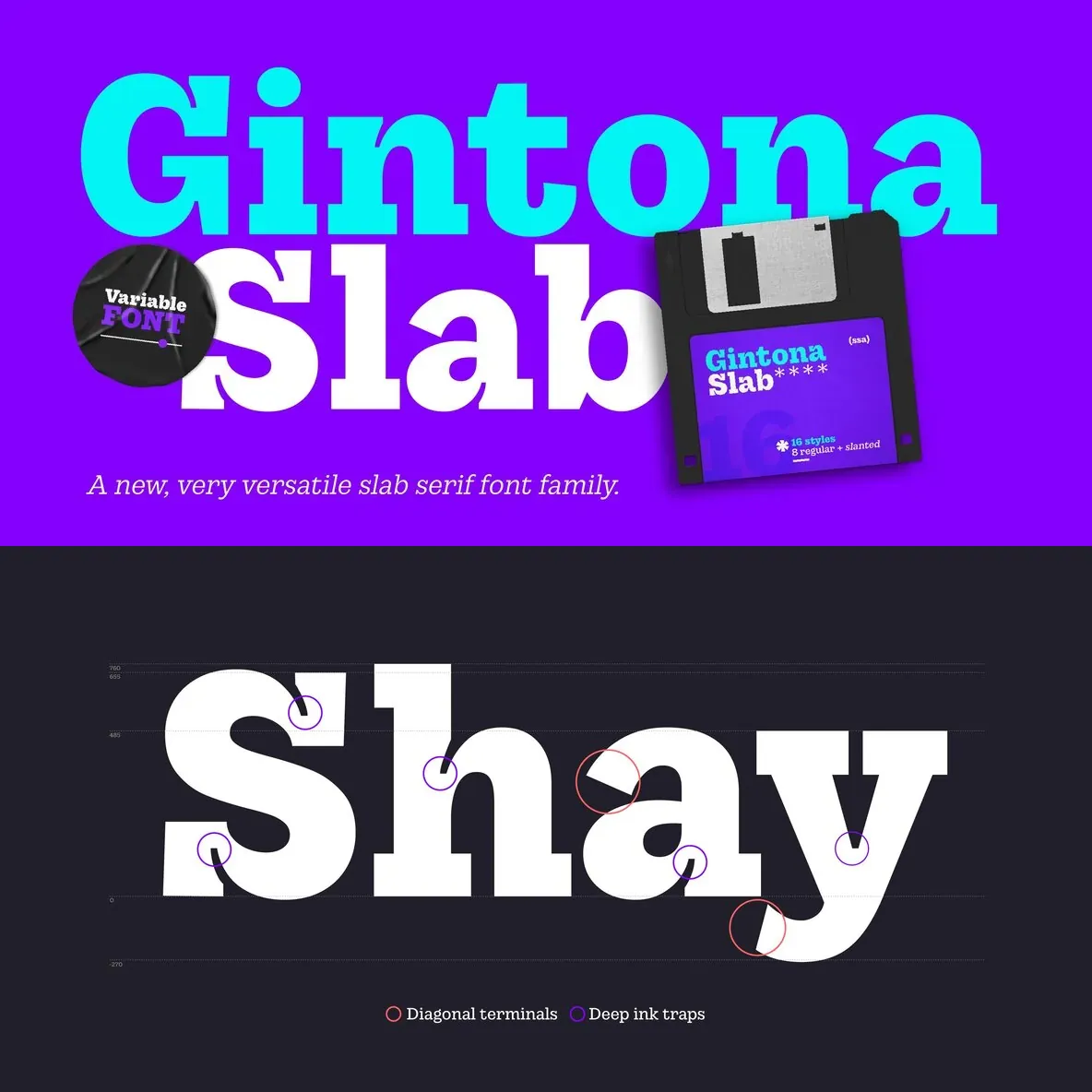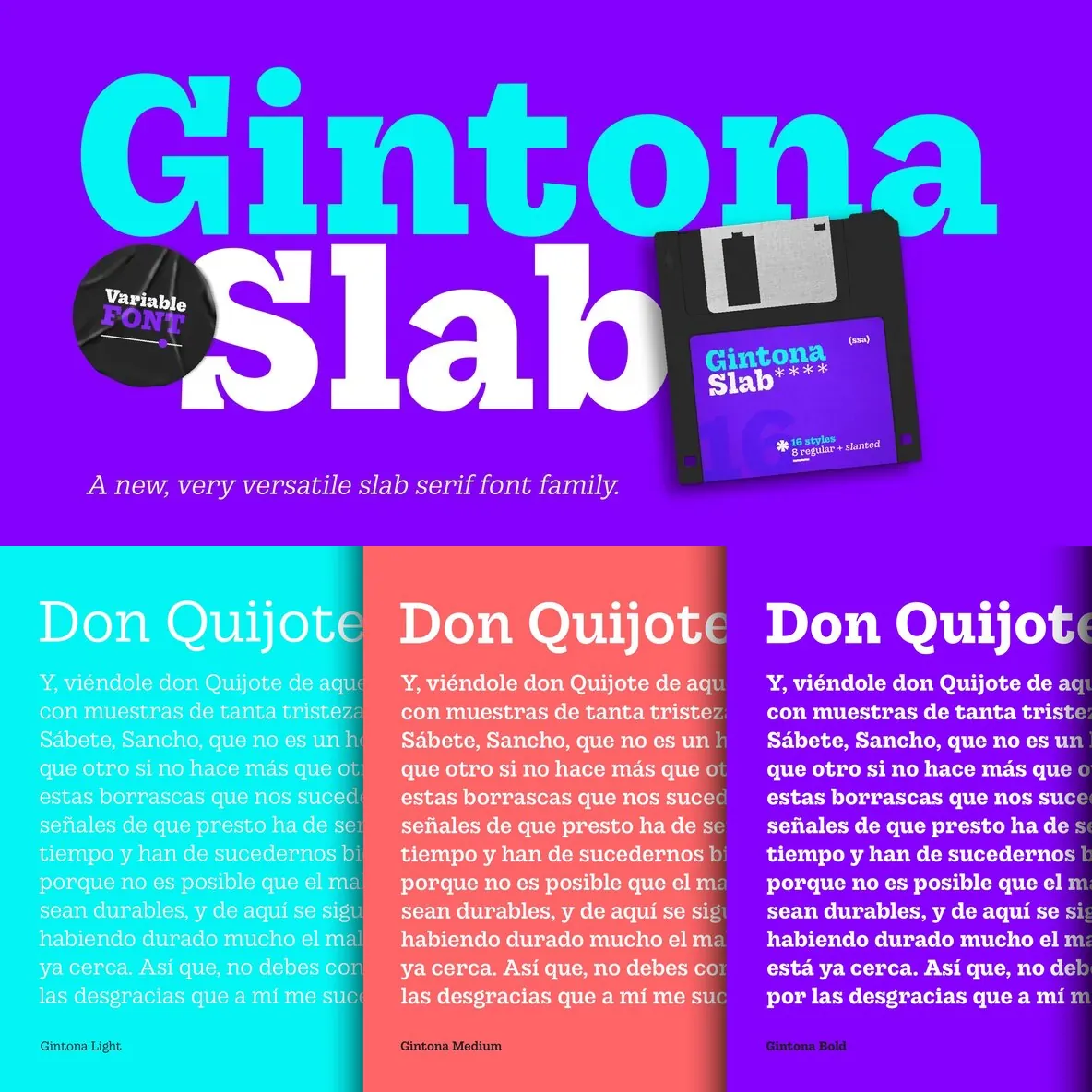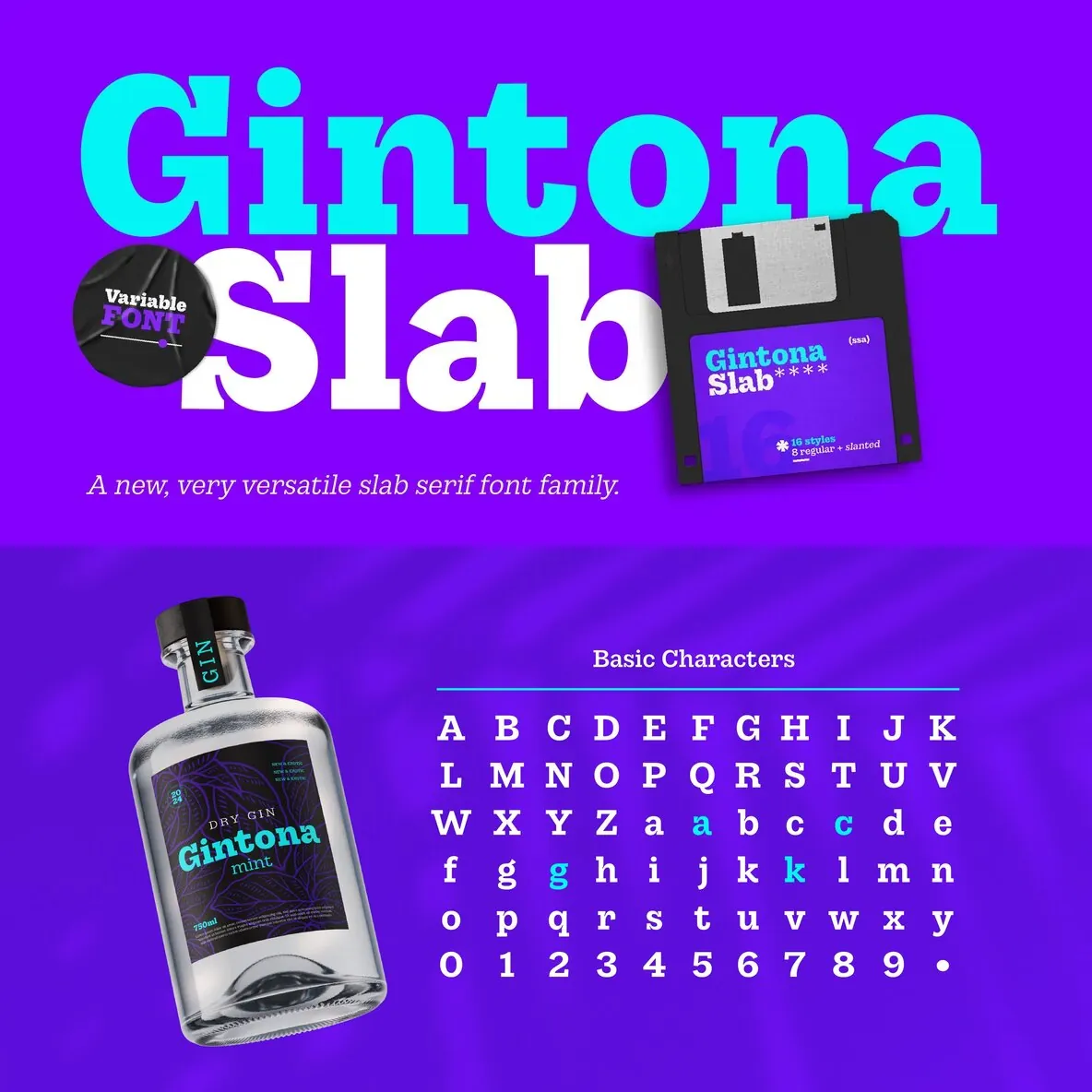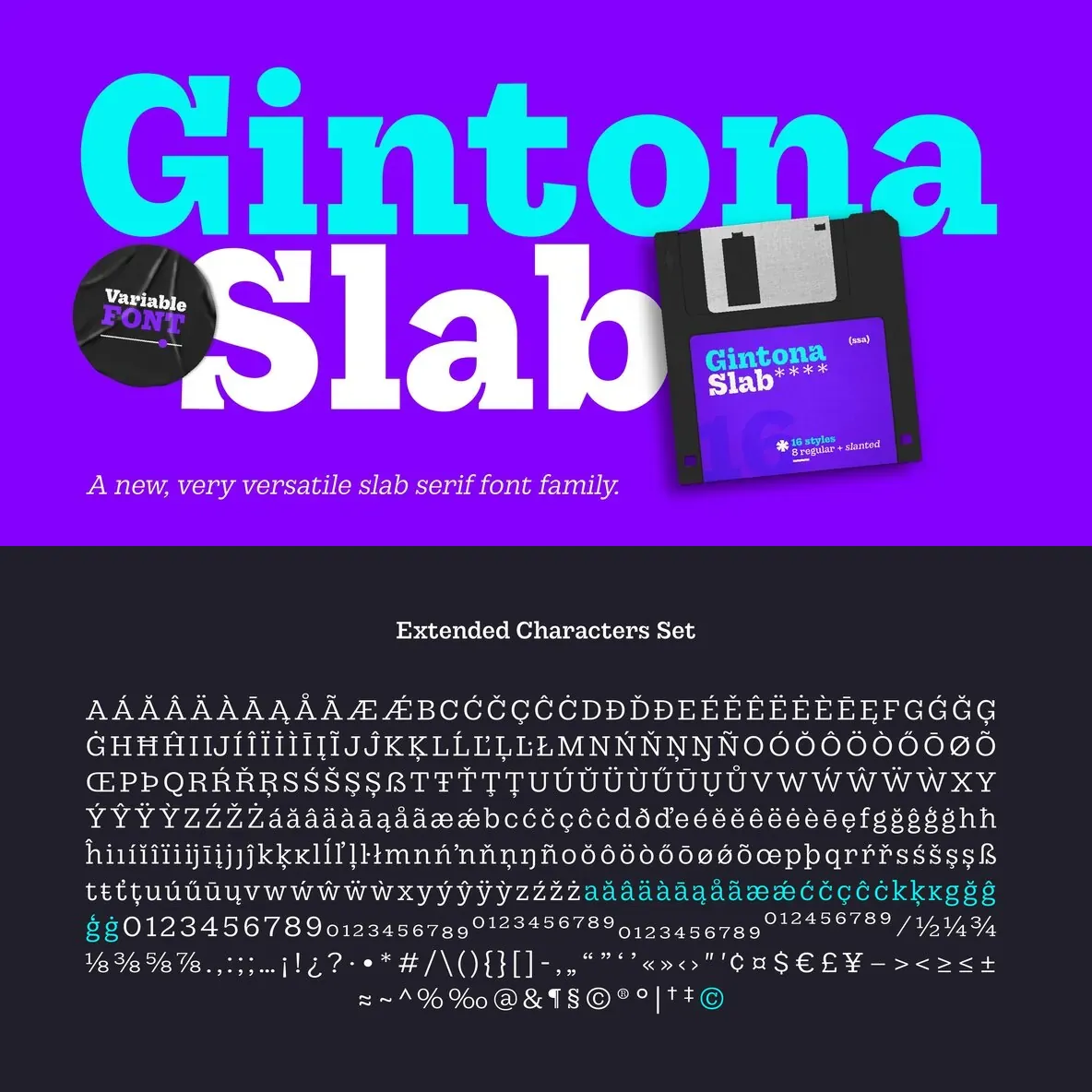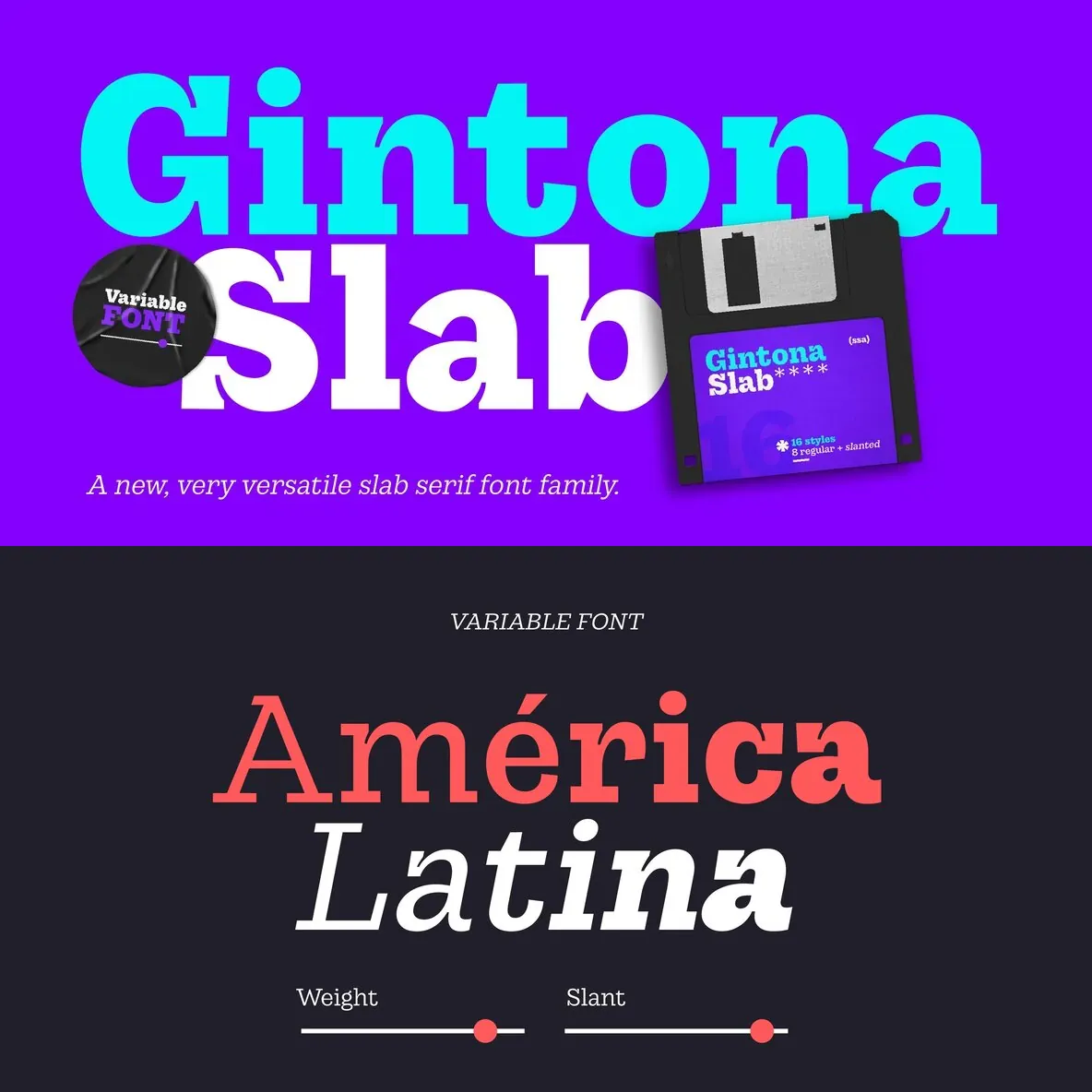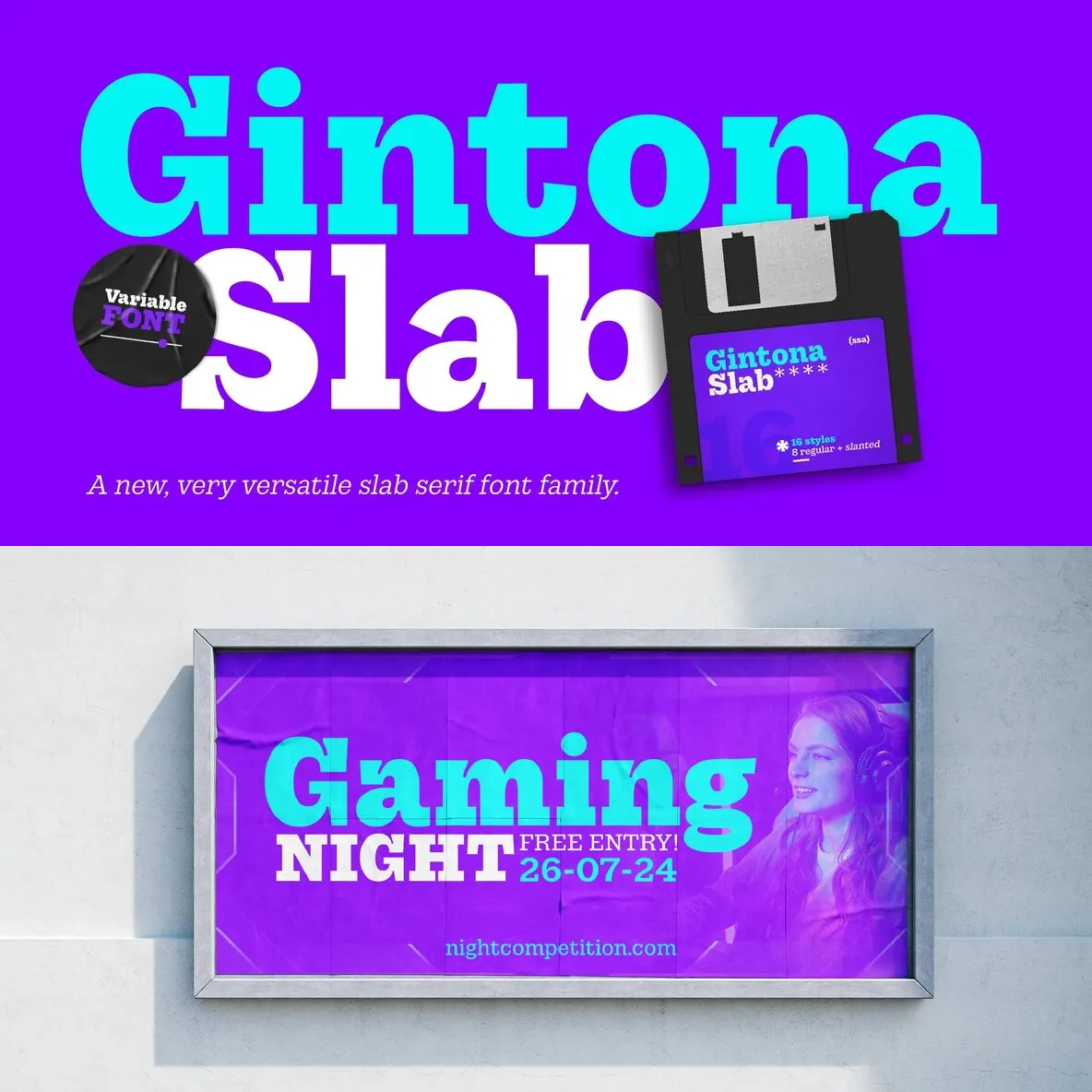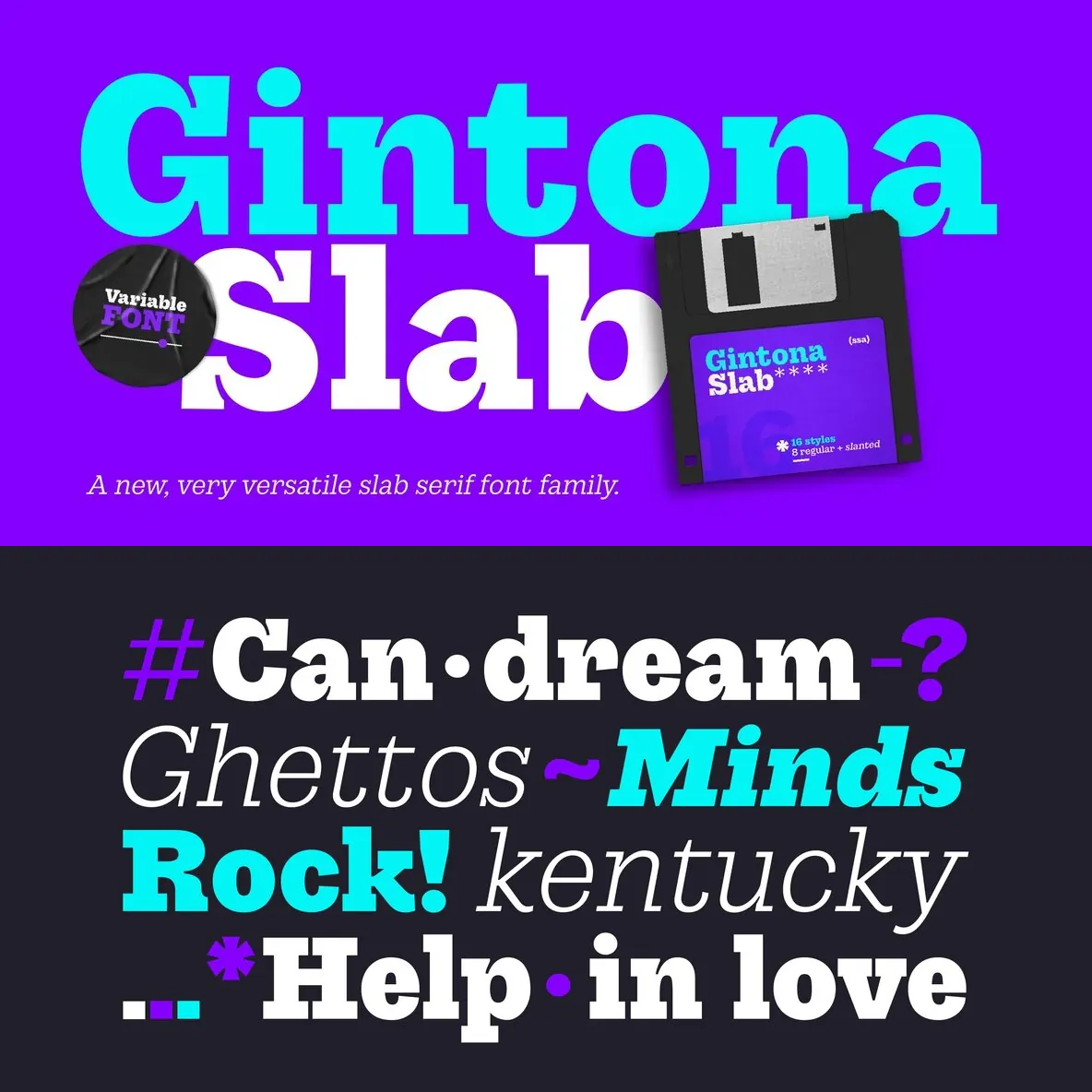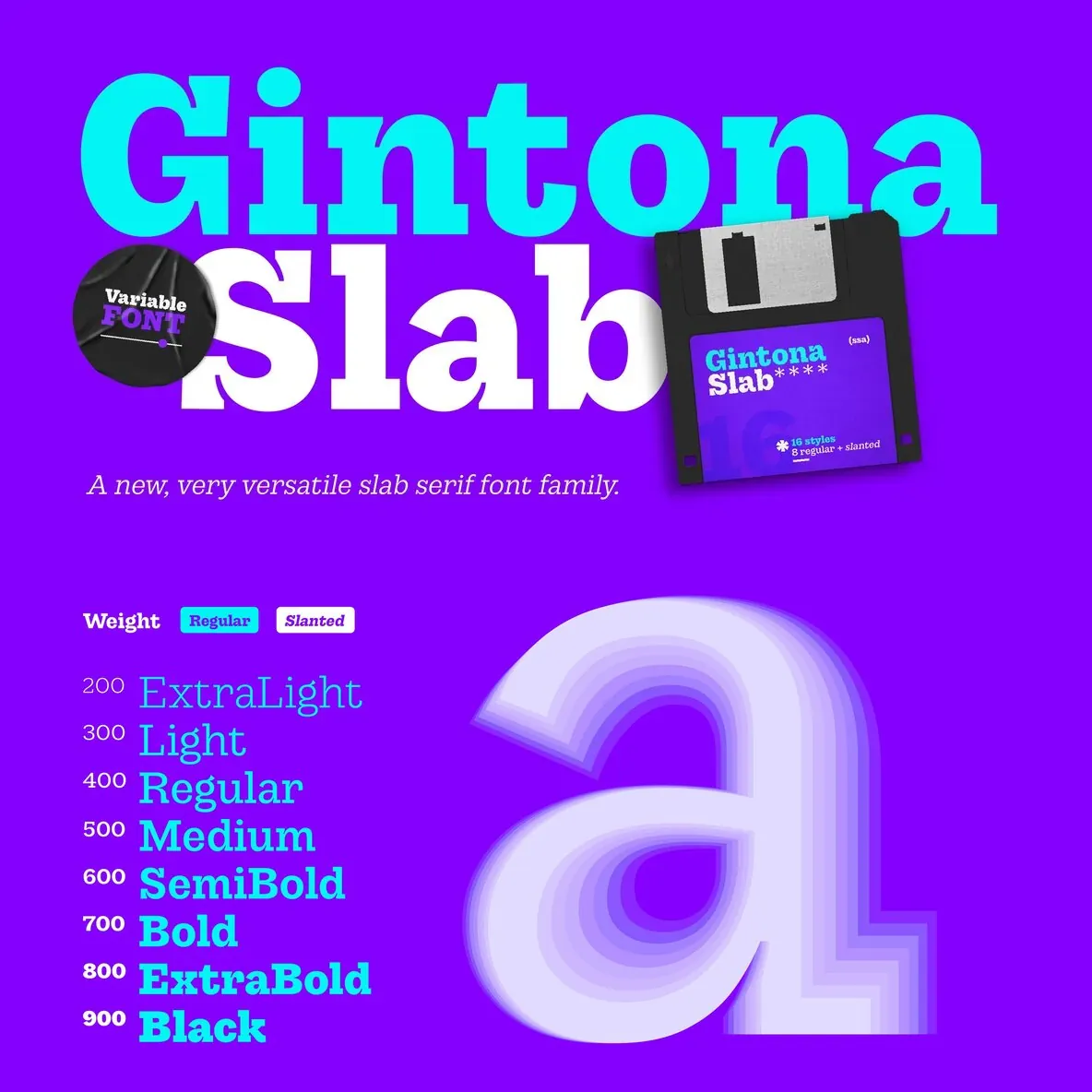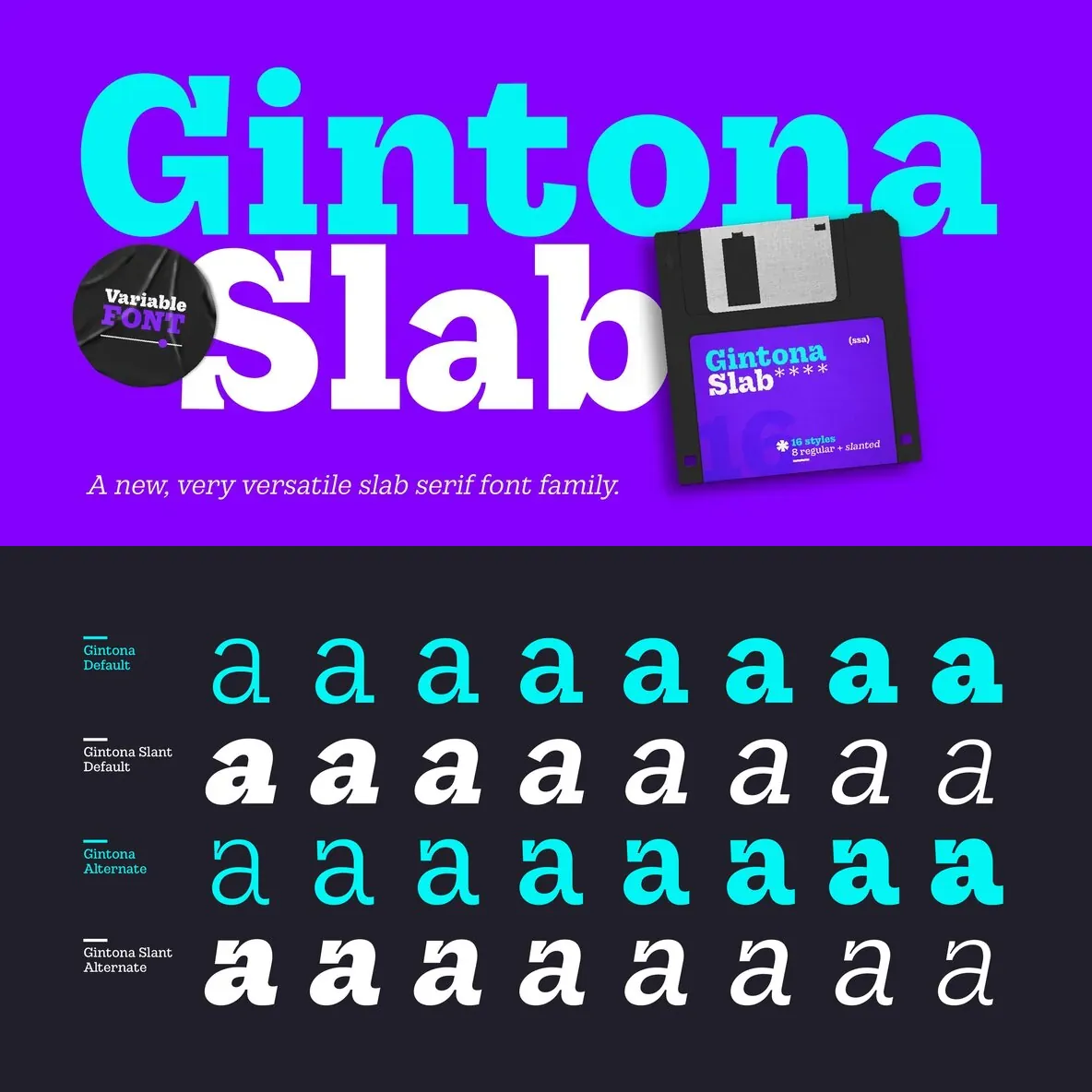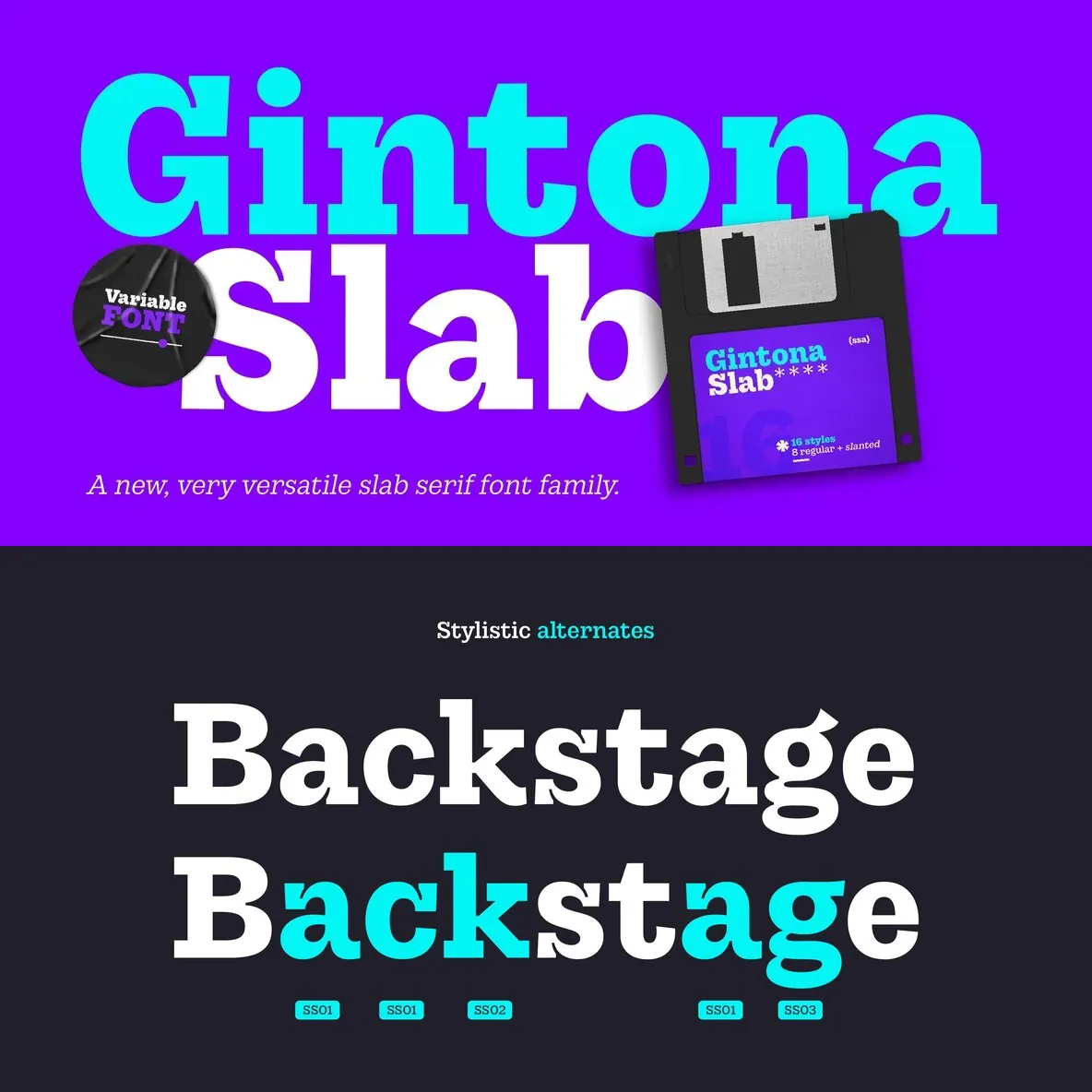
Gintona Slab — Warm Slab, Strong Presence
Gintona Slab is an extremely versatile slab serif font with 8 weights. The range runs from delicately refined styles to bold, robust options. It also comes as a variable font, so you can move through weight variations within a single file.
The design blends traditional slab-serif cues with a contemporary voice. Thick serifs and pronounced ink traps play a central role, used primarily as a stylistic resource rather than a purely functional detail. Diagonal terminals and organic shapes add warmth and a sense of motion, keeping the texture lively across sizes.
Robust, fresh, and modern, Gintona Slab brings a distinctive touch to typography-led projects. Use it for editorial work, logos, packaging, or advertising material when you want a clear, significant visual impact without losing character on the page.